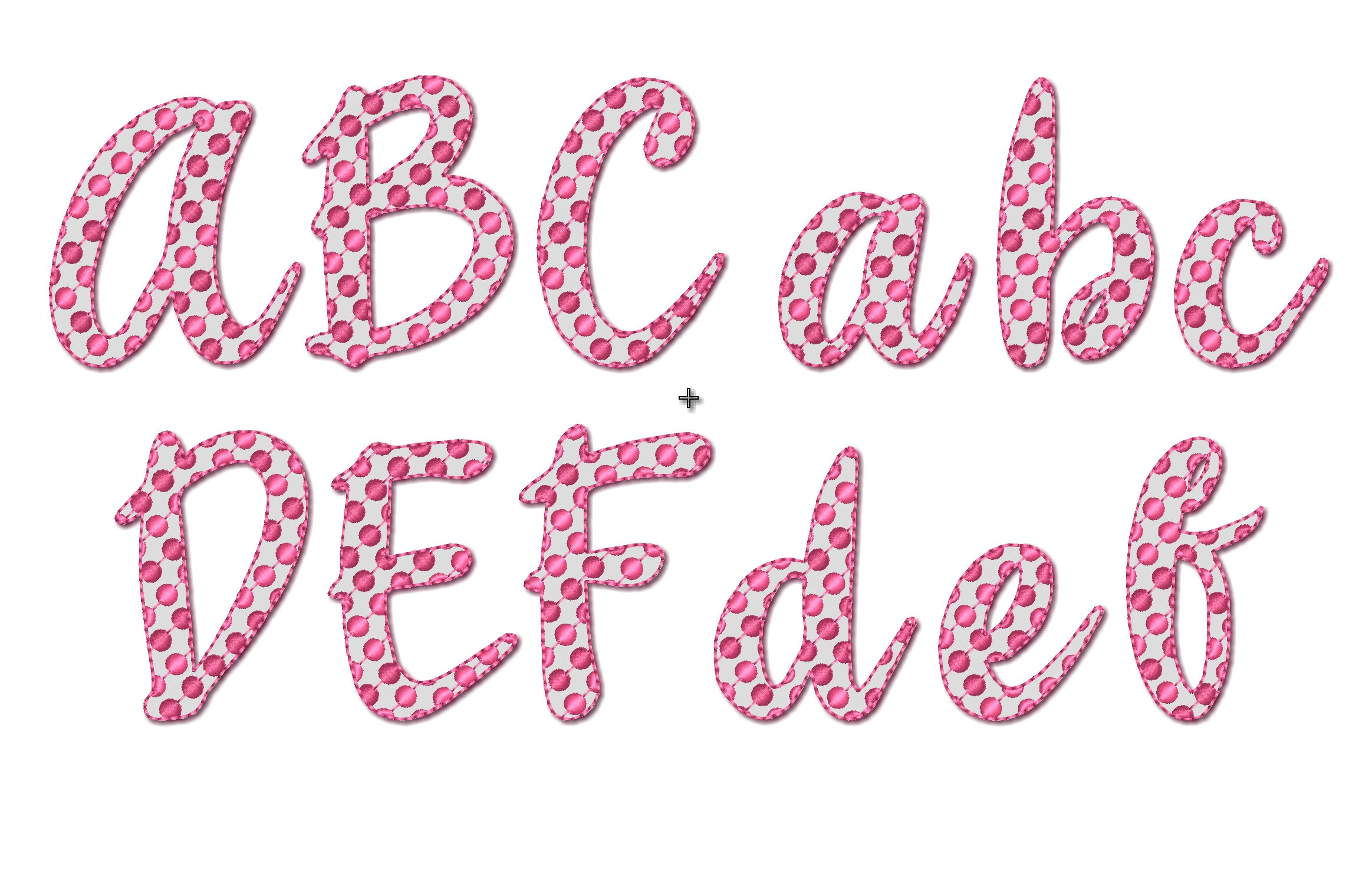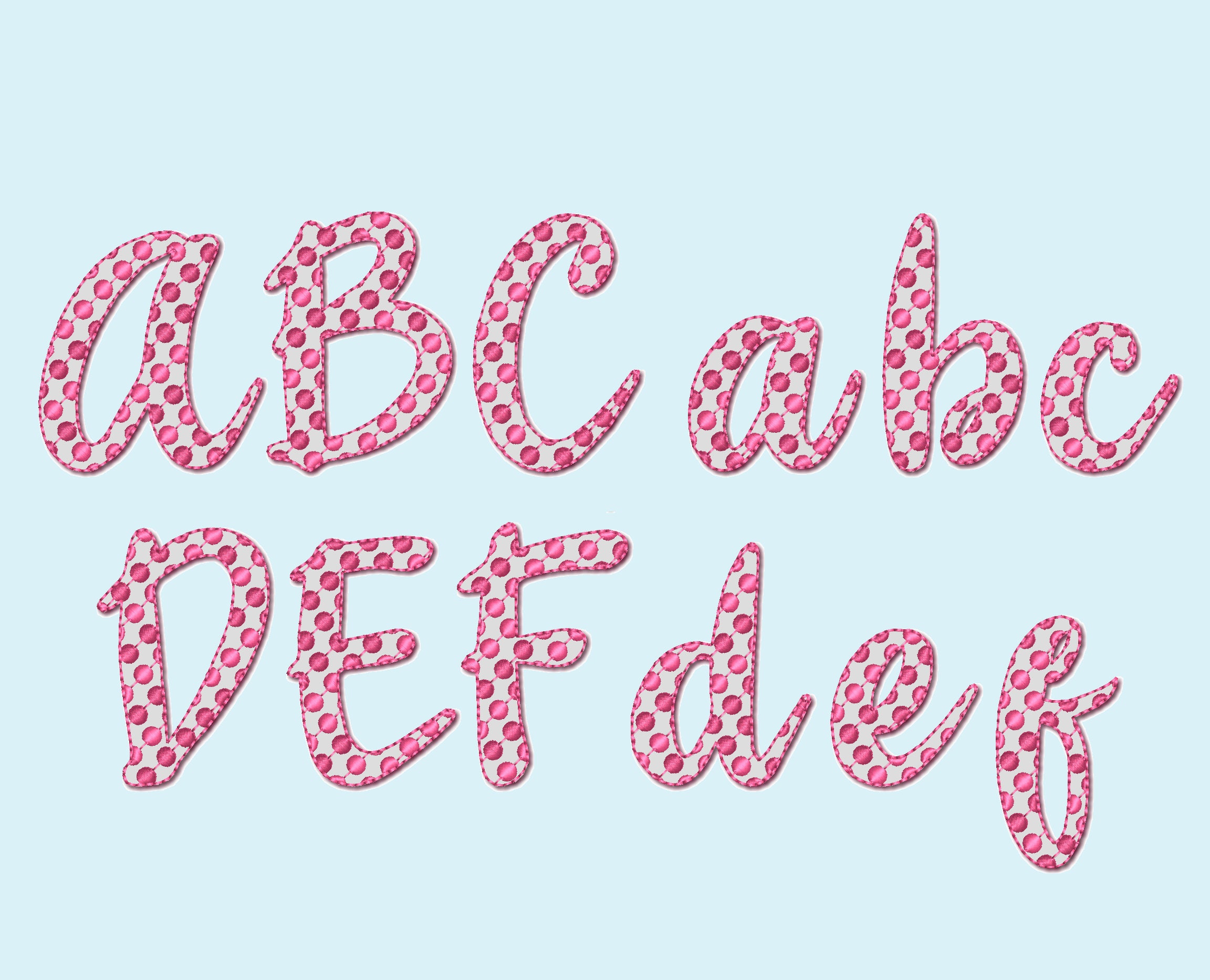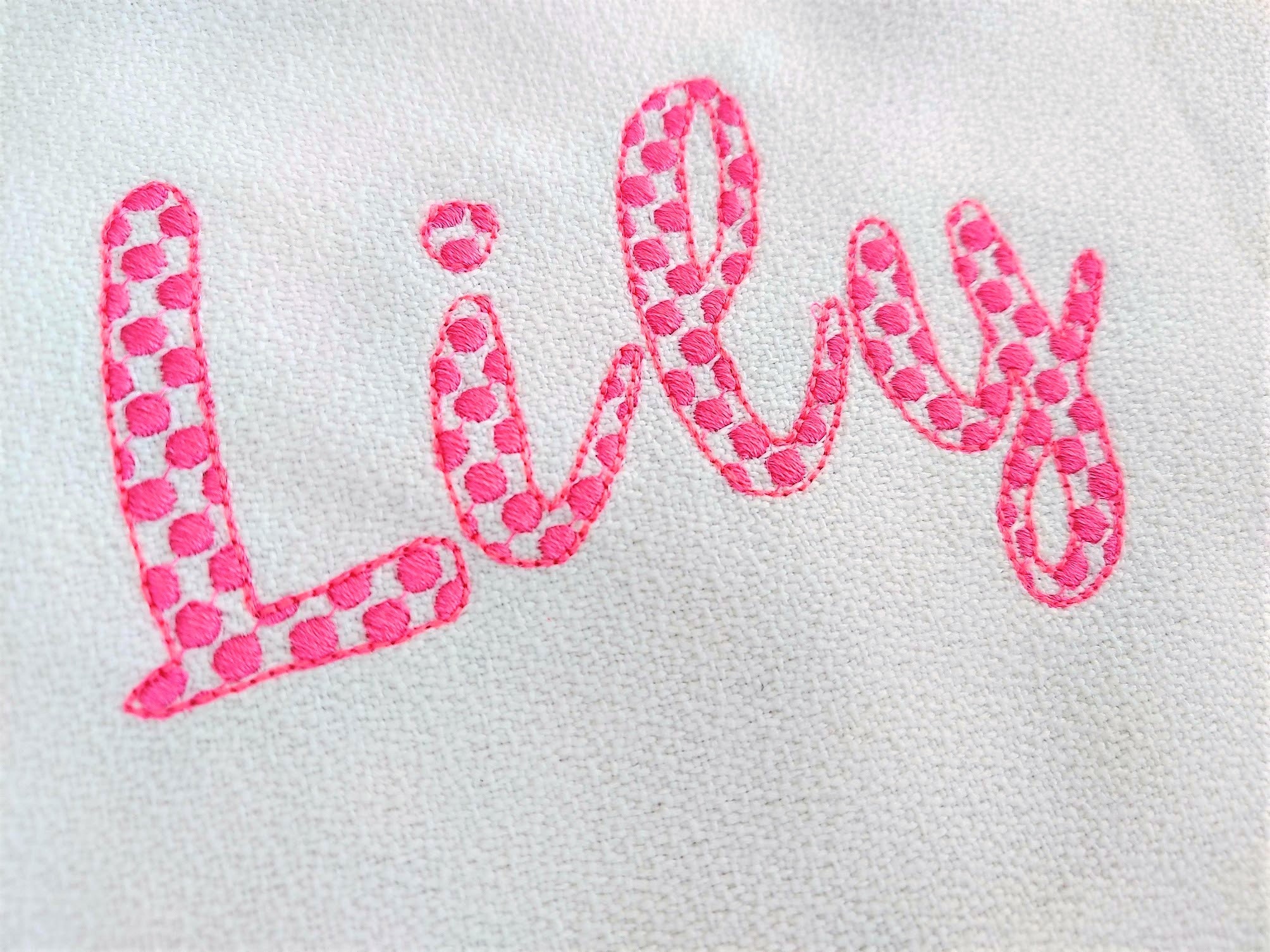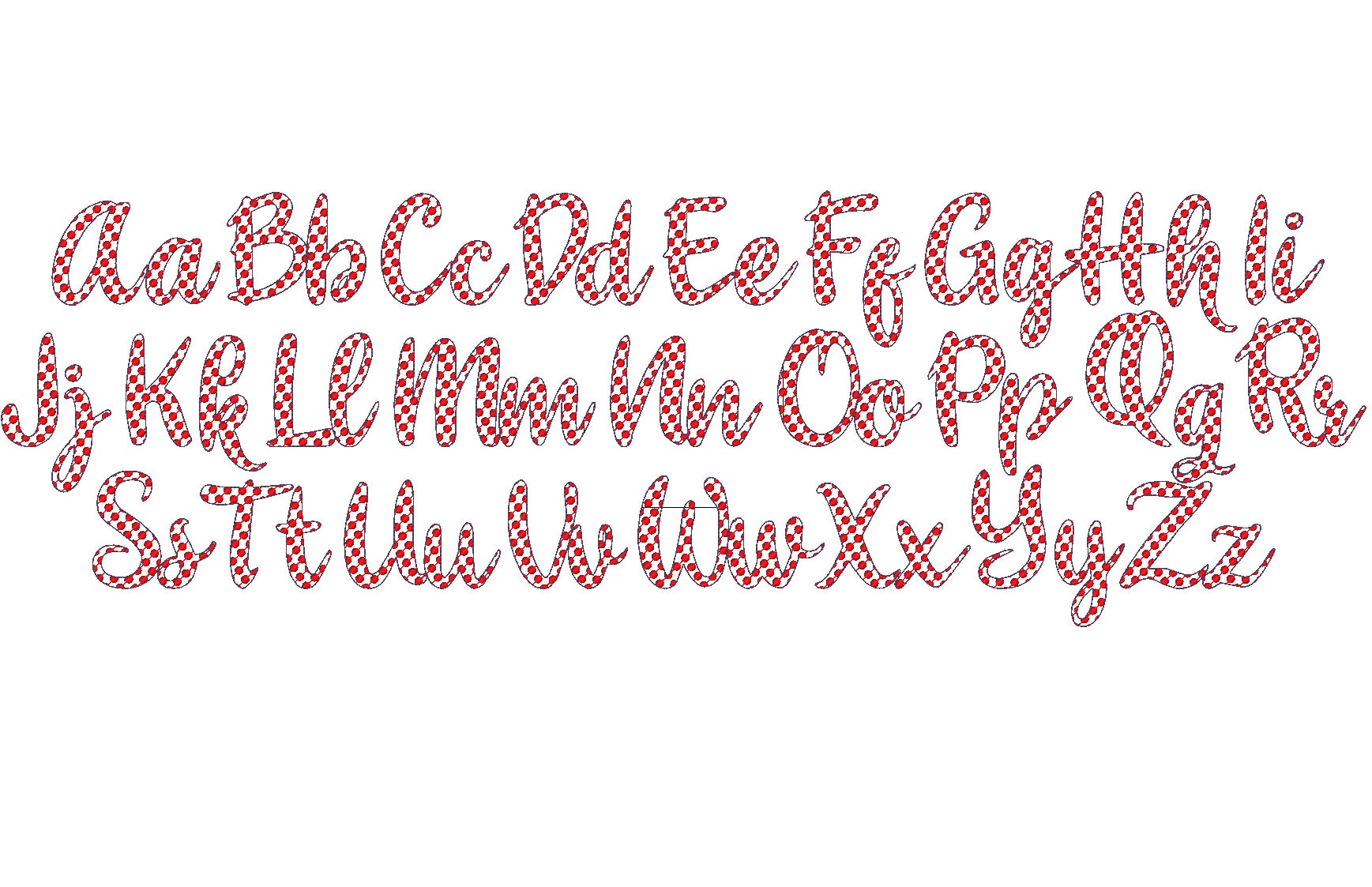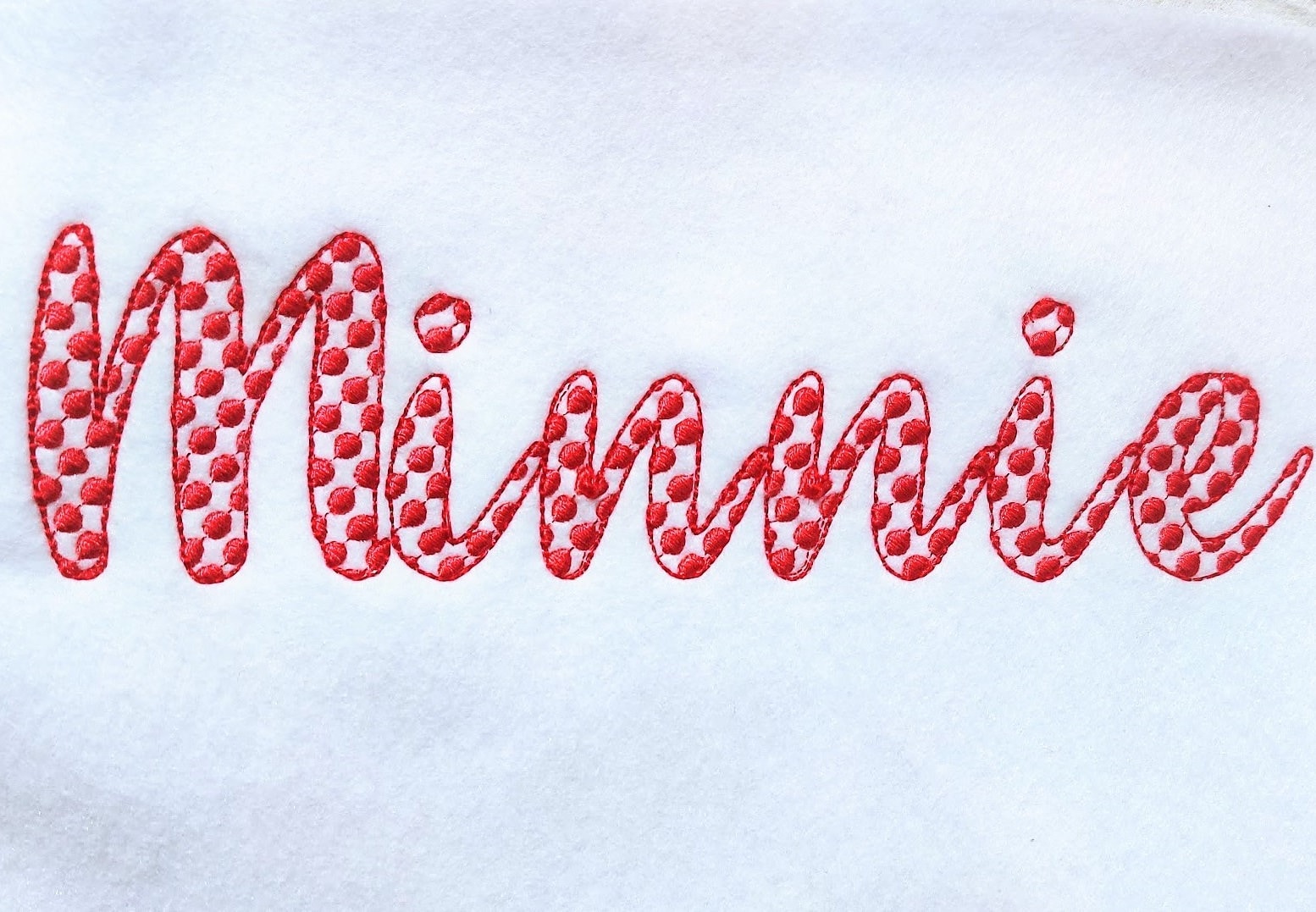
Polka DOT Minnie mouse Font light sketch outline machine embroidery font alphabet letters 1.5, 2, 3 & 4 in BX! vp3, xxx, pes and other embroidery
This is quick stitch designs, they look like like laces, the background fabric look through. Stunning effect. polka dots are part of embroidery.
2 inches - shown on photo